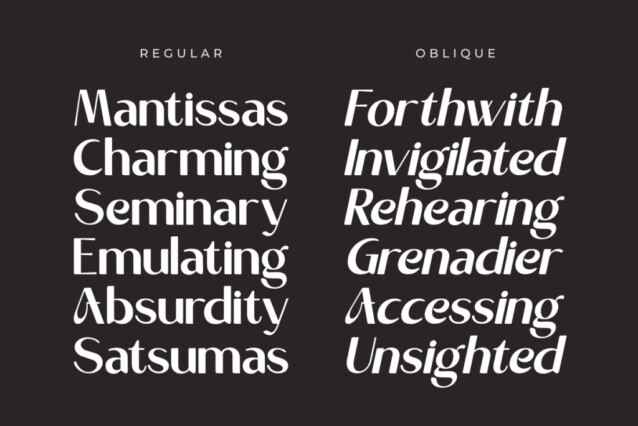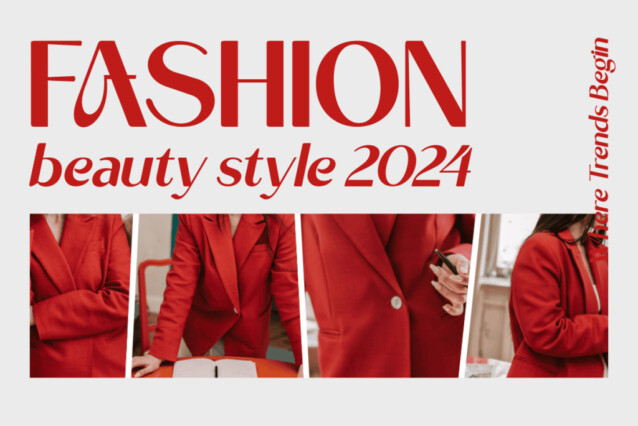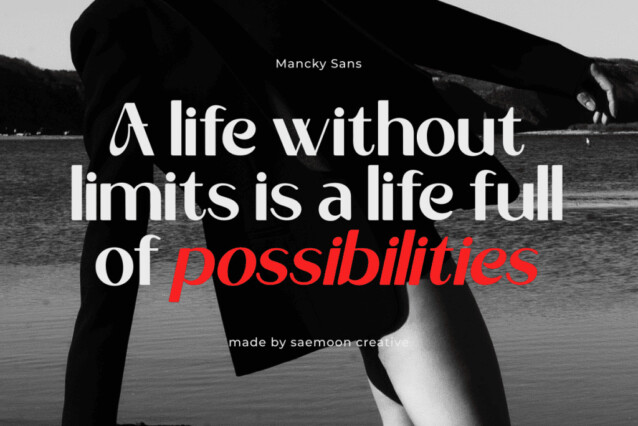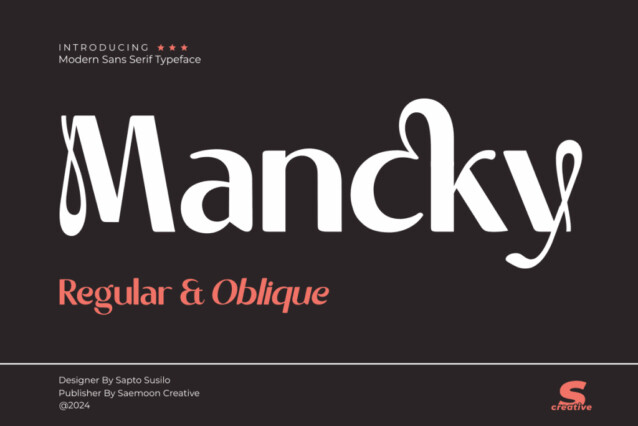
Mancky Font
Mancky Font is a stylish sans-serif font from saemooncreative that seamlessly marries classic elegance with modern flair. Designed with love and dedication to the art of typography, Mancky is here to enhance the character and aesthetics of your designs.
With a slightly bold yet soft style, Mancky is perfect for a wide range of design needs, from logos and product branding to magazine titles and eye-catching headlines. This font exudes professionalism, elegance, and charm, making it the ideal choice for creating sophisticated and memorable designs.